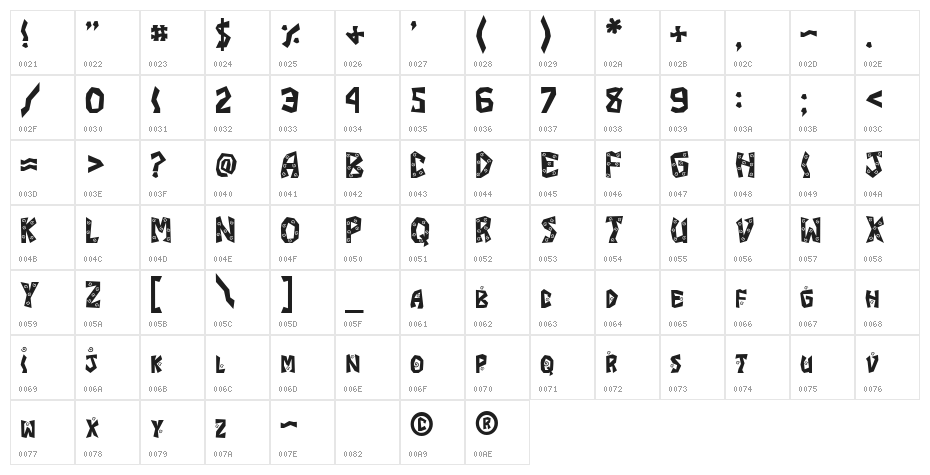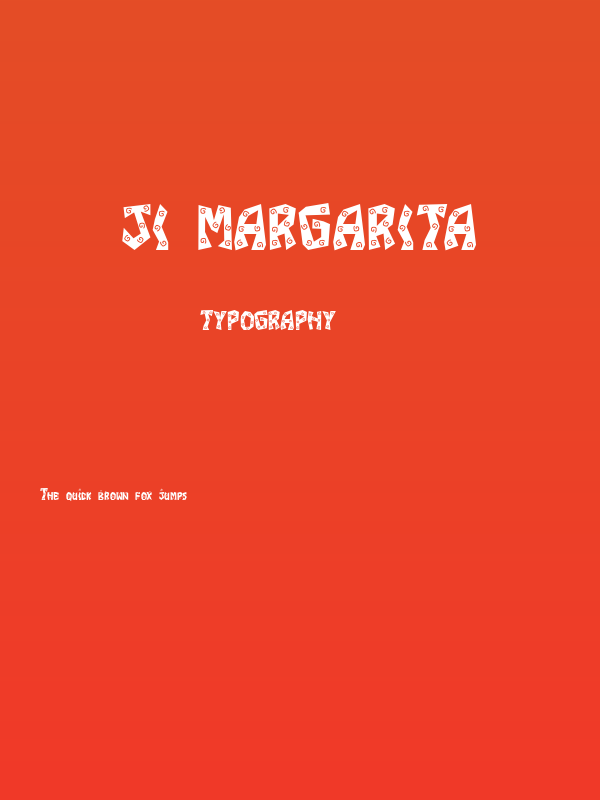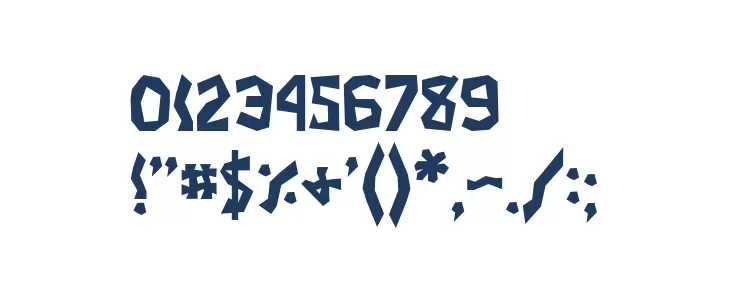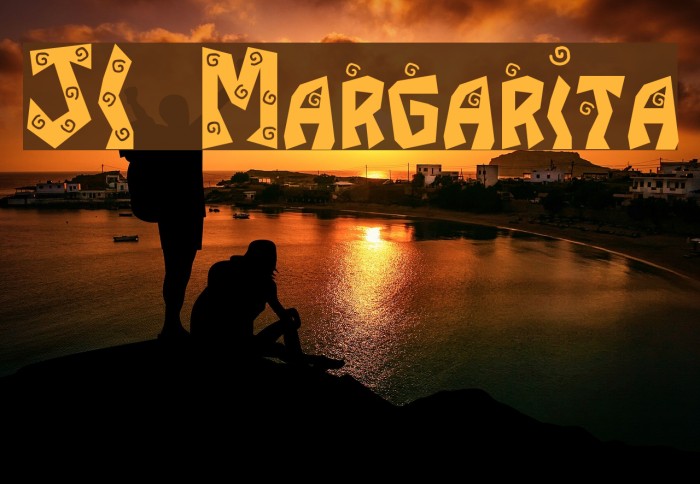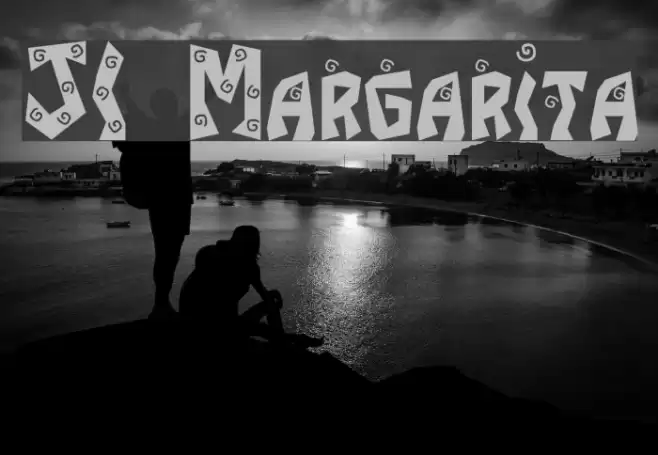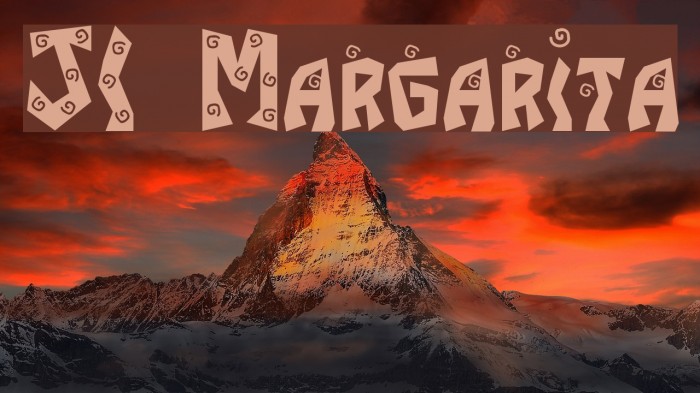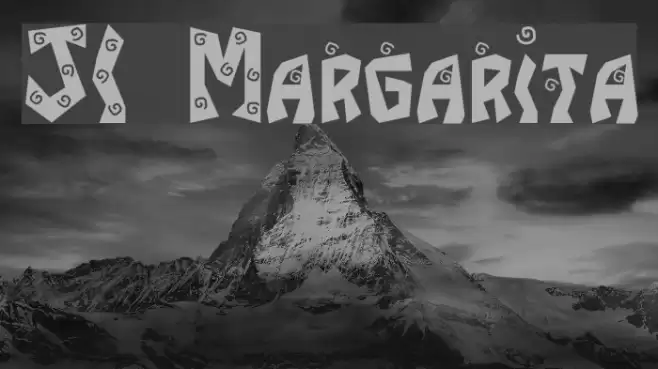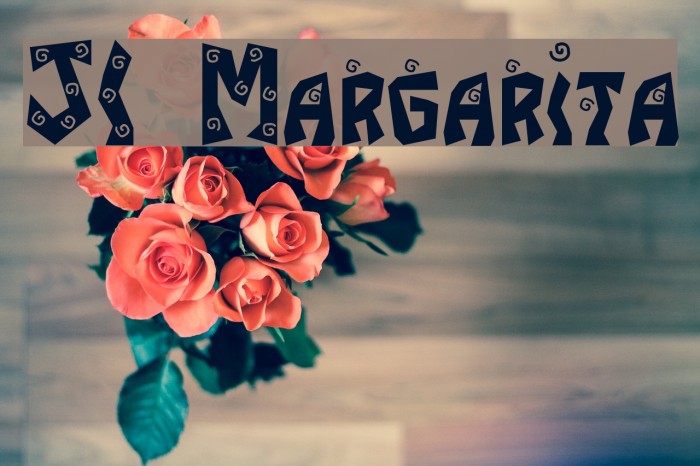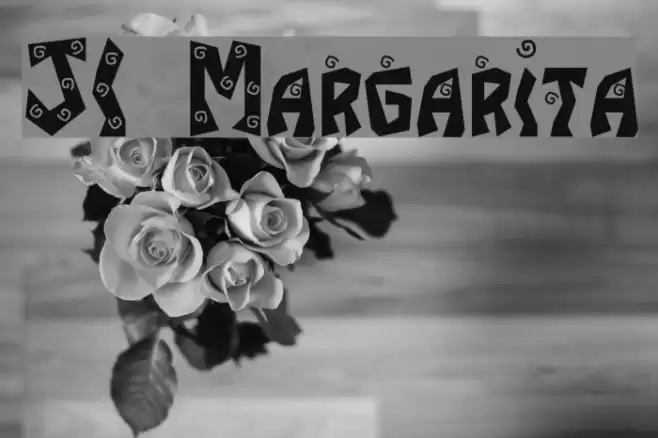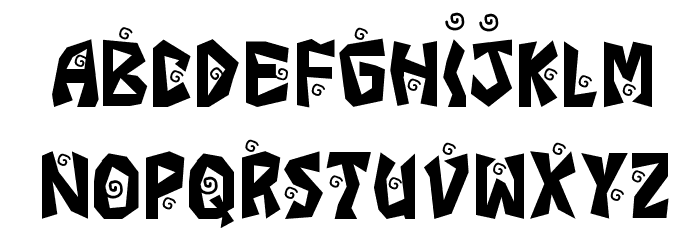
JI Margarita Font
| Общий стиль | Whimsical |
| Рекомендуемые проекты | Ideal for children's book covers, playful posters, party invitations, and creative branding. |